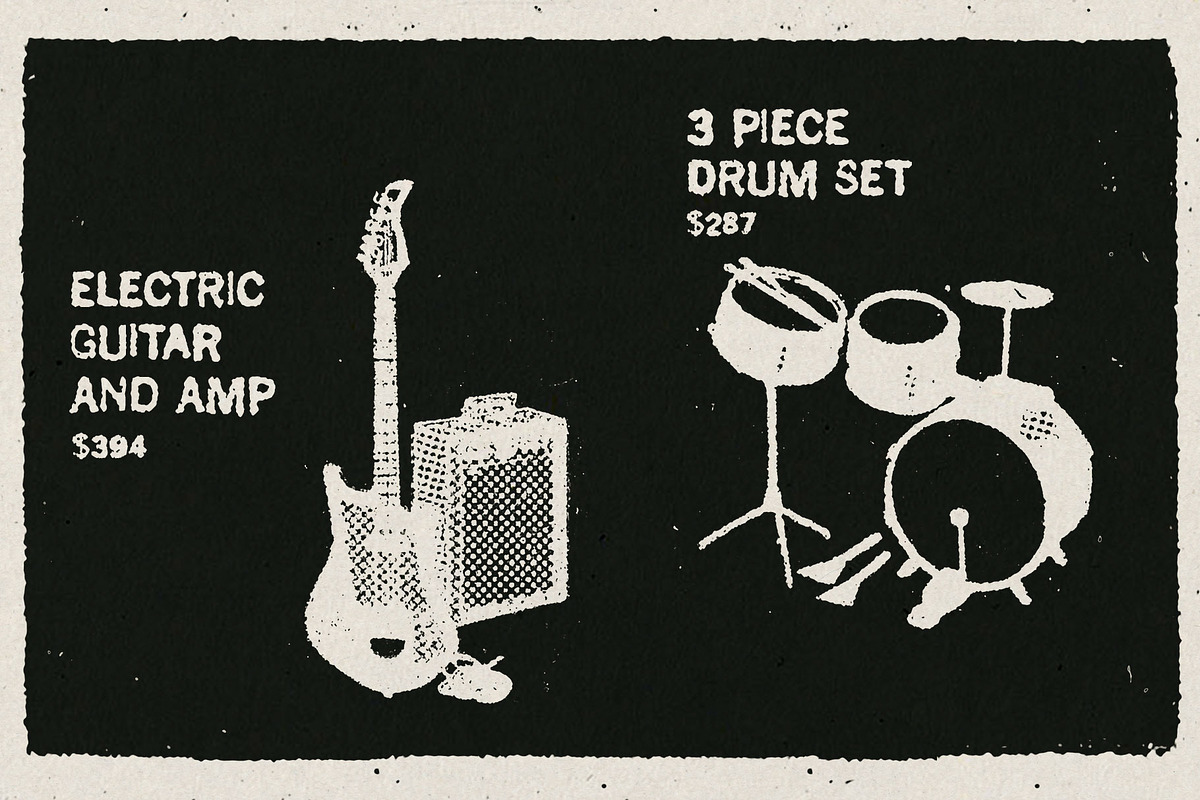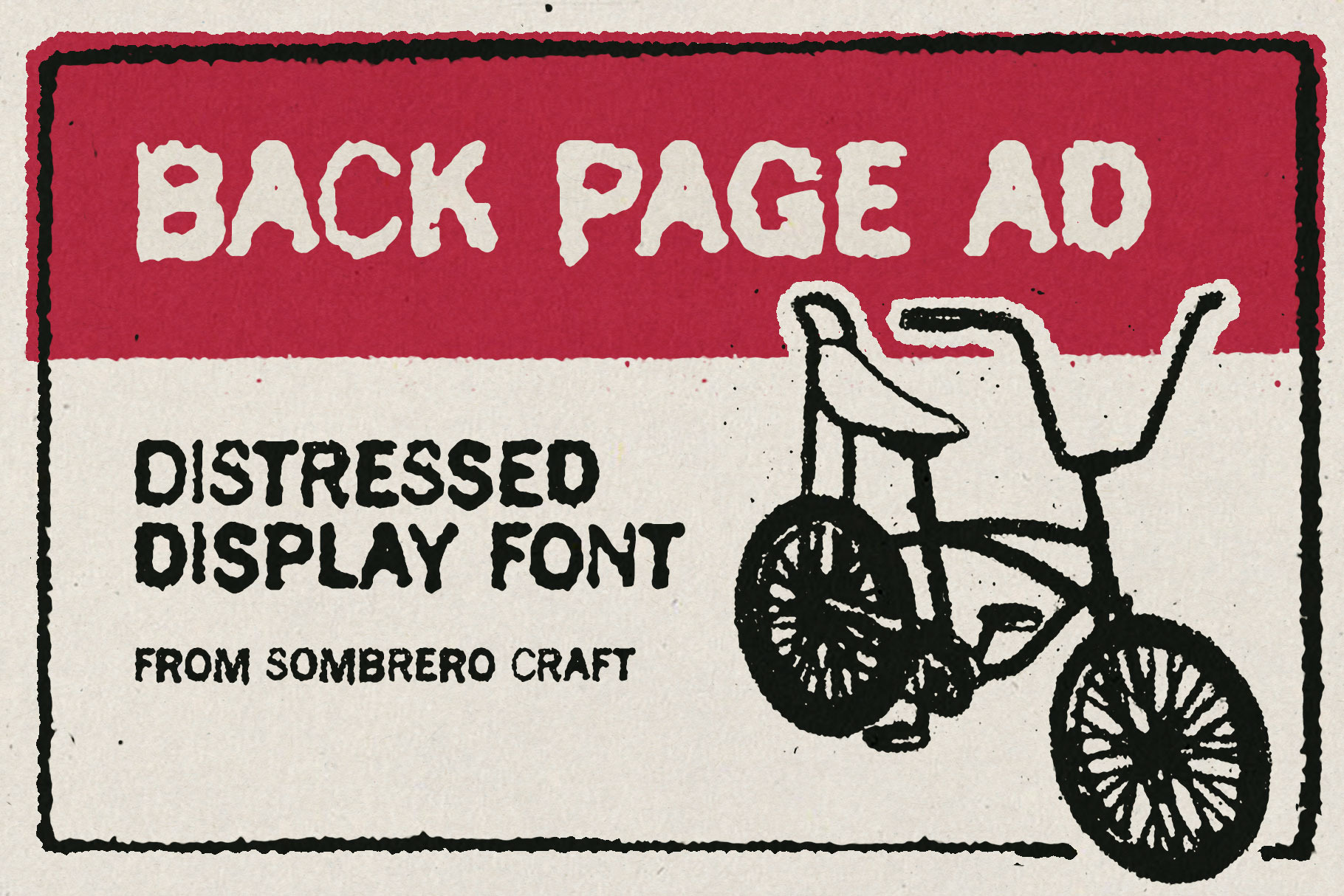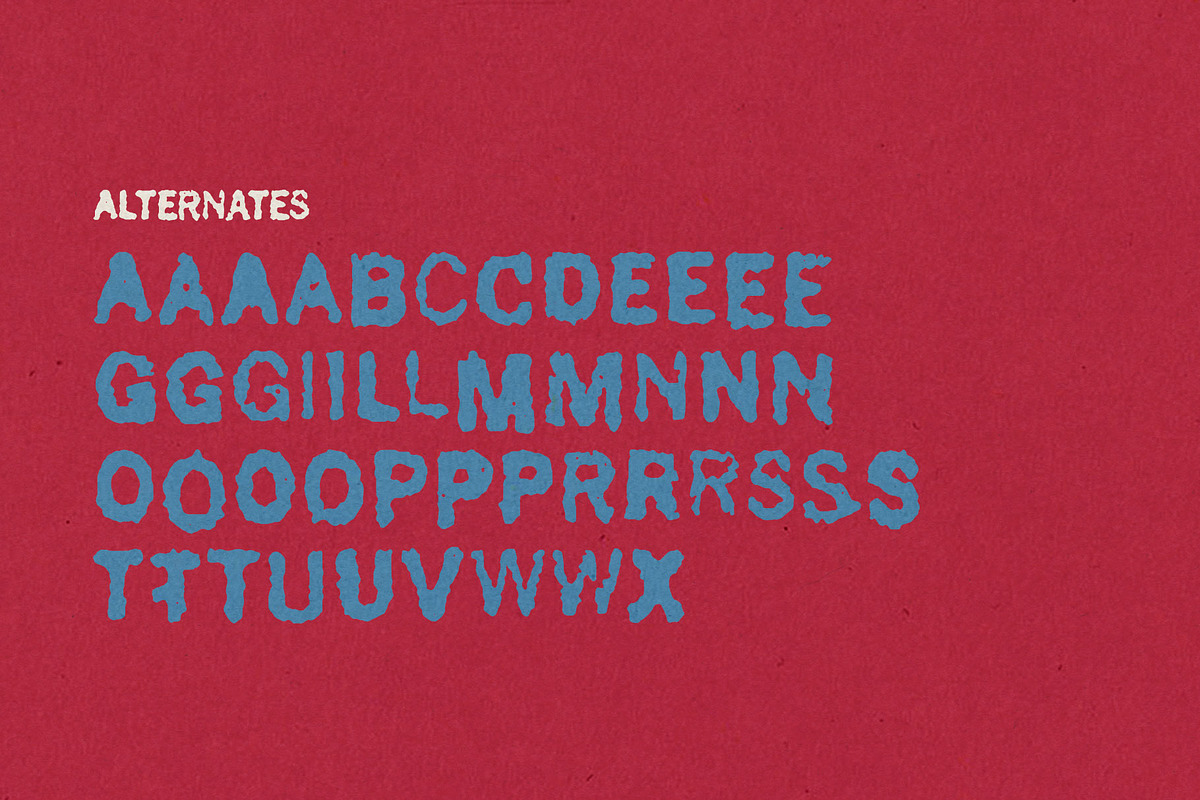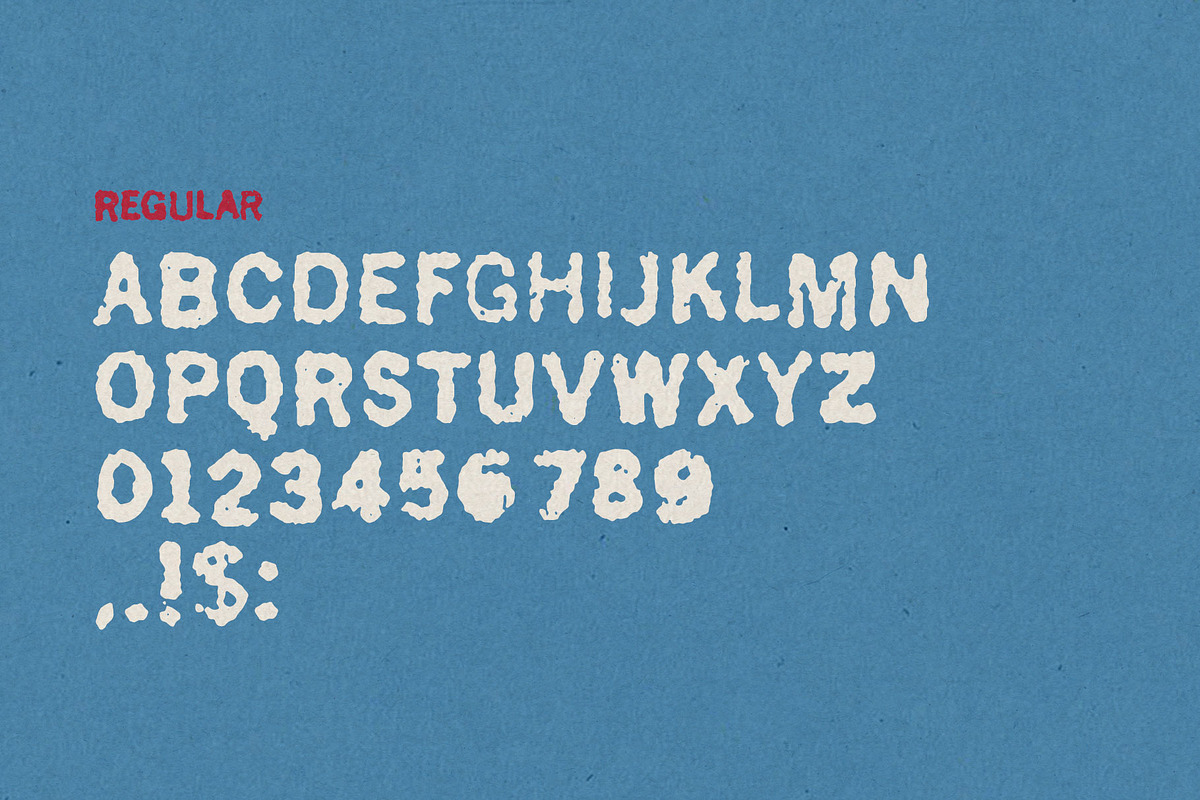
Back Page Ad Distressed Display Font
A rough distressed all-caps display font pulled right from the back page of a comic book and made into useable font - with alternates!